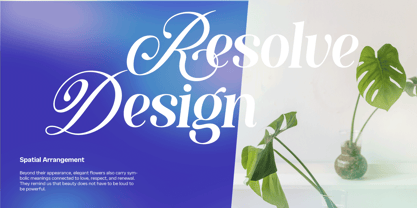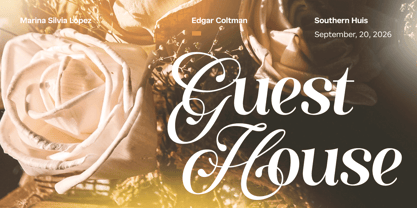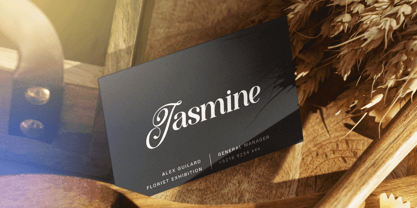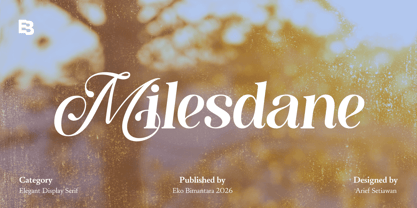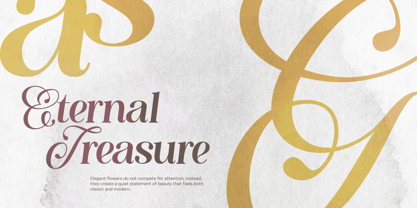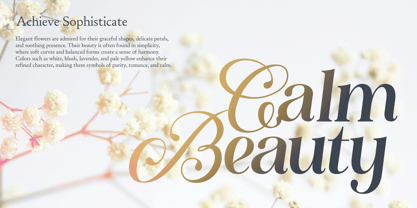
Milesdane
by Eko Bimantara
The Milesdane Font Family was designed by Eko Bimantara and published by Eko Bimantara. Milesdane contains 1 styles. More about this family
Milesdane is a classy and beautiful display italic serif font featuring well-designed letterforms with graceful curves and refined proportions that convey elegance and sophistication. Its elegant capital alternates add a decorative touch for expressive and luxurious typography. Milesdane is ideal for beauty branding, feminine designs, web use, headers, titling, and a wide range of creative projects that require a stylish and polished visual identity.
Eko Bimantara is a type designer from Indonesia. Always has an intention to creating fonts that not only look great but also perform across a wide range of mediums and also across wide range of theme. The goal is to give designers the tools to make their projects that speaks a lot with various expression. Eko Bimantara’s fonts are featured in everything from corporate identities to street art posters, and have numerous ideas and concept ready to expand for fresh fonts for years further.